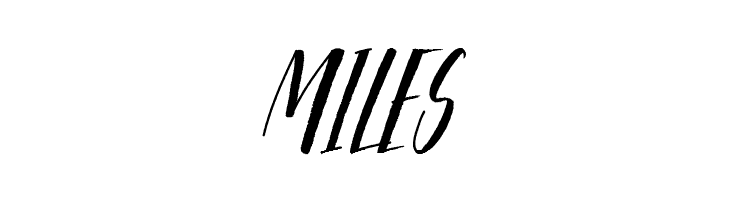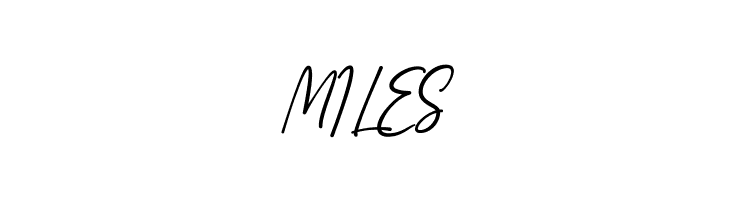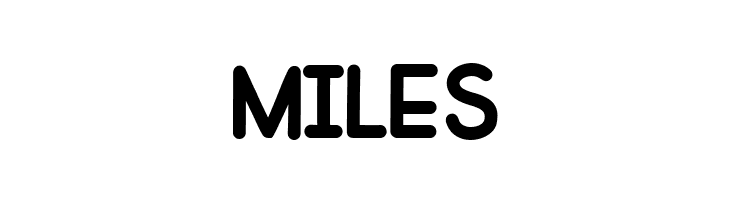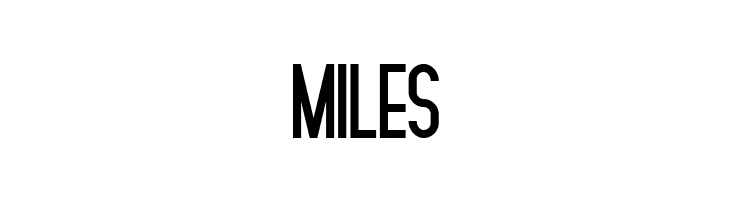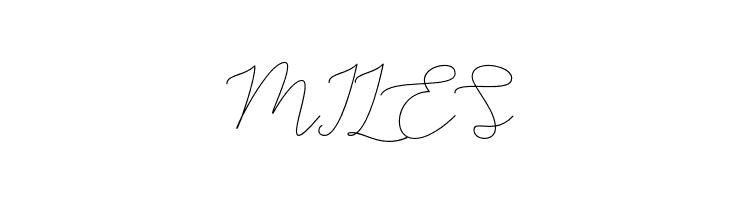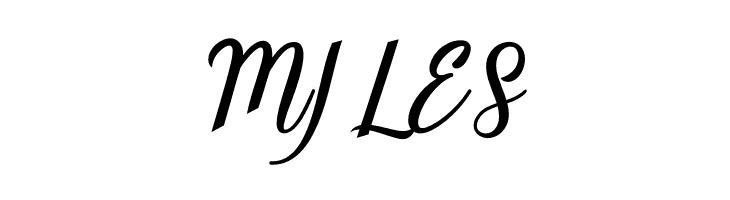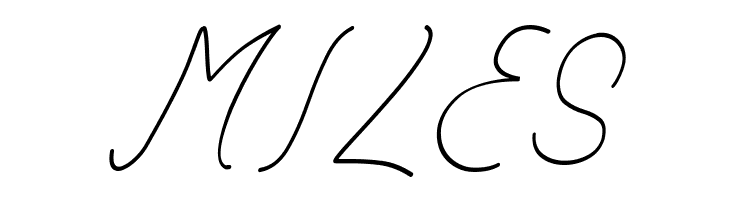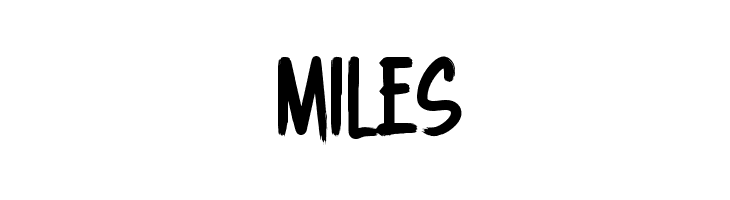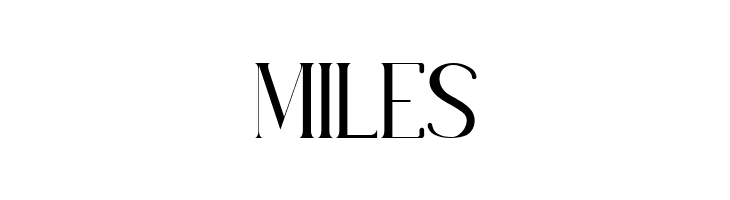
A graceful and flowing script font with elegant, cursive letterforms.
An elegant, flowing script font with graceful cursive strokes.
A graceful script font with elegant flourishes and a handwritten feel.
A bold, cursive font with fluid, interconnected letters and a dynamic style.
A modern, elegant script font with flowing, cursive letters and graceful flourishes.
A graceful cursive script with elegant loops and swashes.
An elegant, cursive font with graceful flourishes and medium contrast.
A graceful script font with elegant swashes and flowing lines.
A bold, hand-painted style font with dynamic, brush-like strokes.
A bold, hand-drawn font with a dynamic and energetic style.
A bold, modern font with geometric lines and strong presence.
A modern, geometric font with a tall, condensed structure and consistent stroke width.
A modern, geometric typeface with a tall, narrow, and consistent design.
A sleek, modern font with thin, elongated characters and a minimalist style.
An elegant and decorative script font with intricate swirls and loops.
A graceful script font with fluid, connected strokes and a sophisticated style.
A lively and elegant script font with fluid strokes and dynamic character.
A lively and expressive script font with flowing, natural handwriting style.
An elegant script font with decorative loops and heart embellishments.
A graceful and modern script font with elegant, flowing characters.
A graceful and flowing script font with elegant cursive strokes.
A graceful and sophisticated script font with a flowing, handwritten style.
A bold, brush-style font with dynamic strokes and a modern calligraphic flair.
A flowing, cursive script font with elegant, rounded edges and dynamic strokes.
A flowing, cursive script font with elegant loops and swashes.
A cursive, handwritten font with elegant, flowing strokes and ornate flourishes.
An elegant, flowing script font with interconnected letters and high contrast strokes.
An elegant script font with flowing, calligraphic strokes.
A bold, playful script font with rounded, fluid characters.
Playful handwritten font with a casual style.
A lively, expressive handwritten script with fluid, dynamic characters.
A modern, elegant script font with a flowing, handwritten style.
A bold, expressive script font with a handwritten, dynamic style.
An elegant script font with intricate curls and flowing lines.
A high-contrast, elegant font with modern and classic elements.